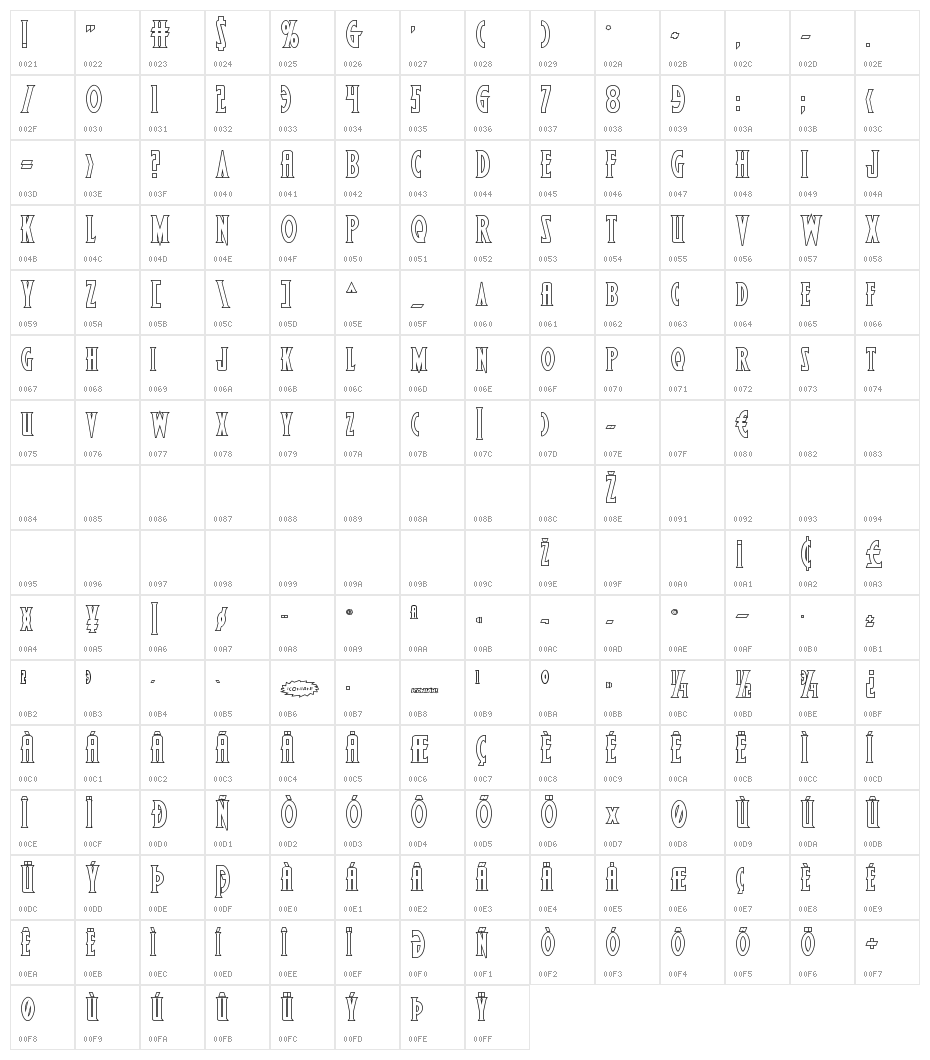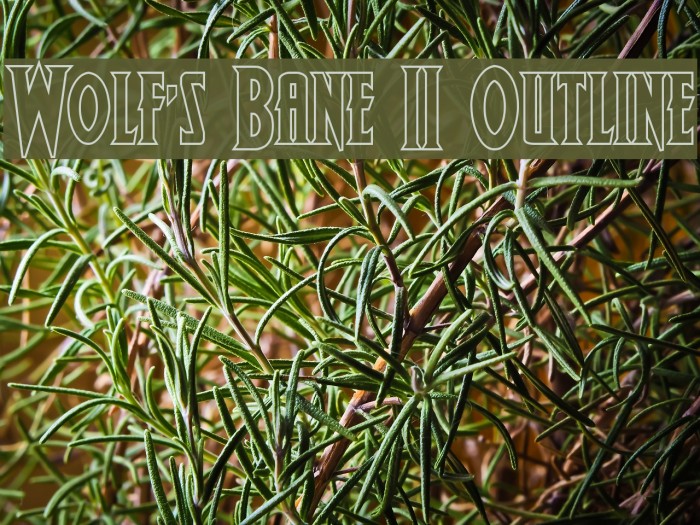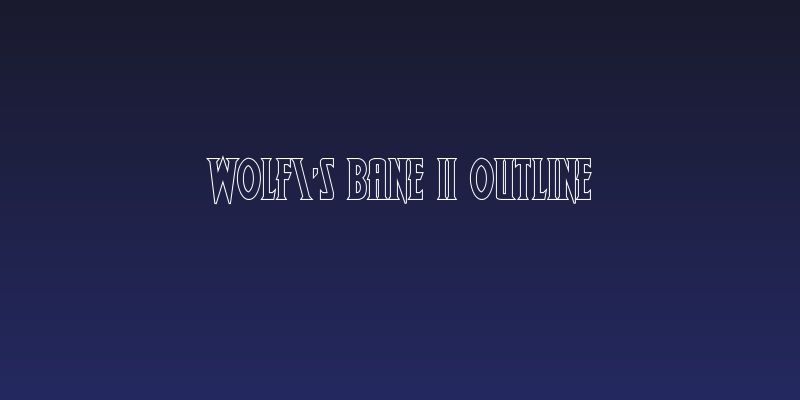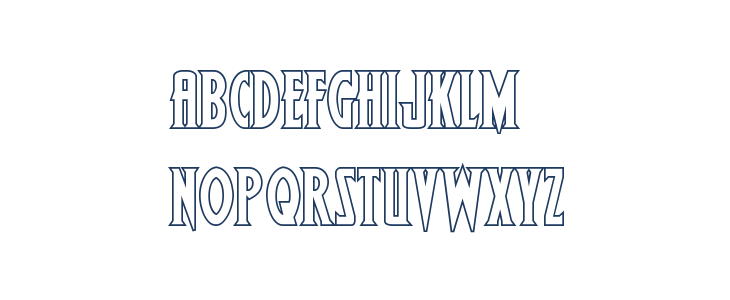
Wolf's Bane II Outline Font
Wolf's Bane II Outline Description
This font features a bold, outlined style with sharp, angular edges and a distinct geometric flair. The uppercase letters are tall and commanding, with a unique cut-out effect that adds depth and dimension. The numbers and special characters maintain this bold outline, creating a cohesive and striking appearance. The font's design is reminiscent of vintage poster typography, making it ideal for attention-grabbing headlines and titles. Its strong presence and decorative nature make it unsuitable for body text but perfect for projects that require a dramatic and impactful look.
| Proposed Projects | Ideal for posters, logos, album covers, and any design needing a bold, vintage touch. |